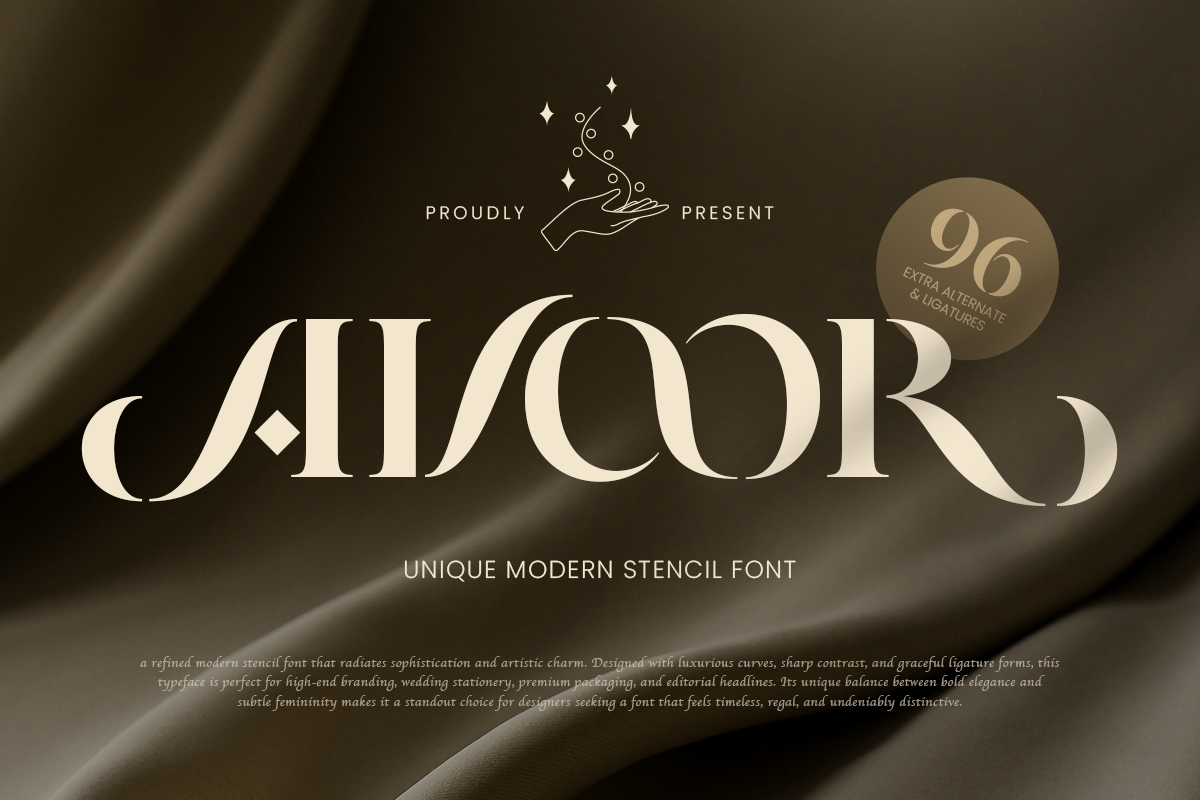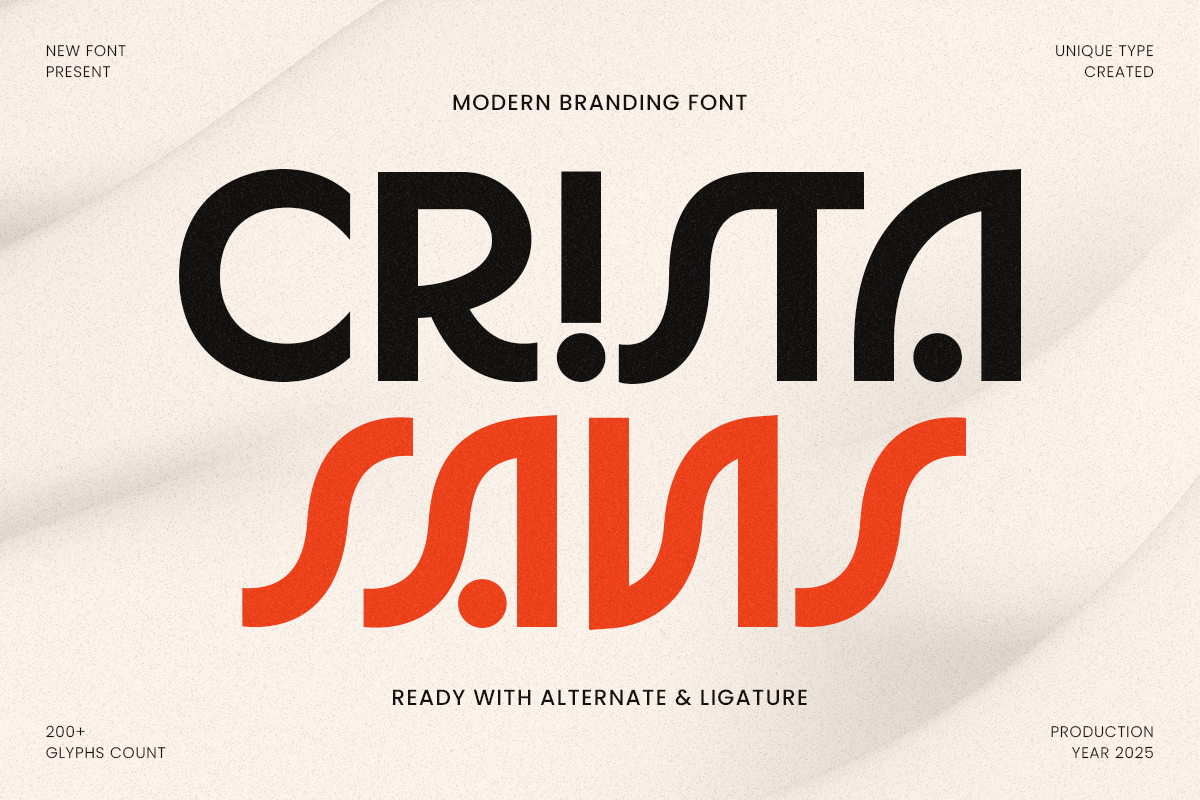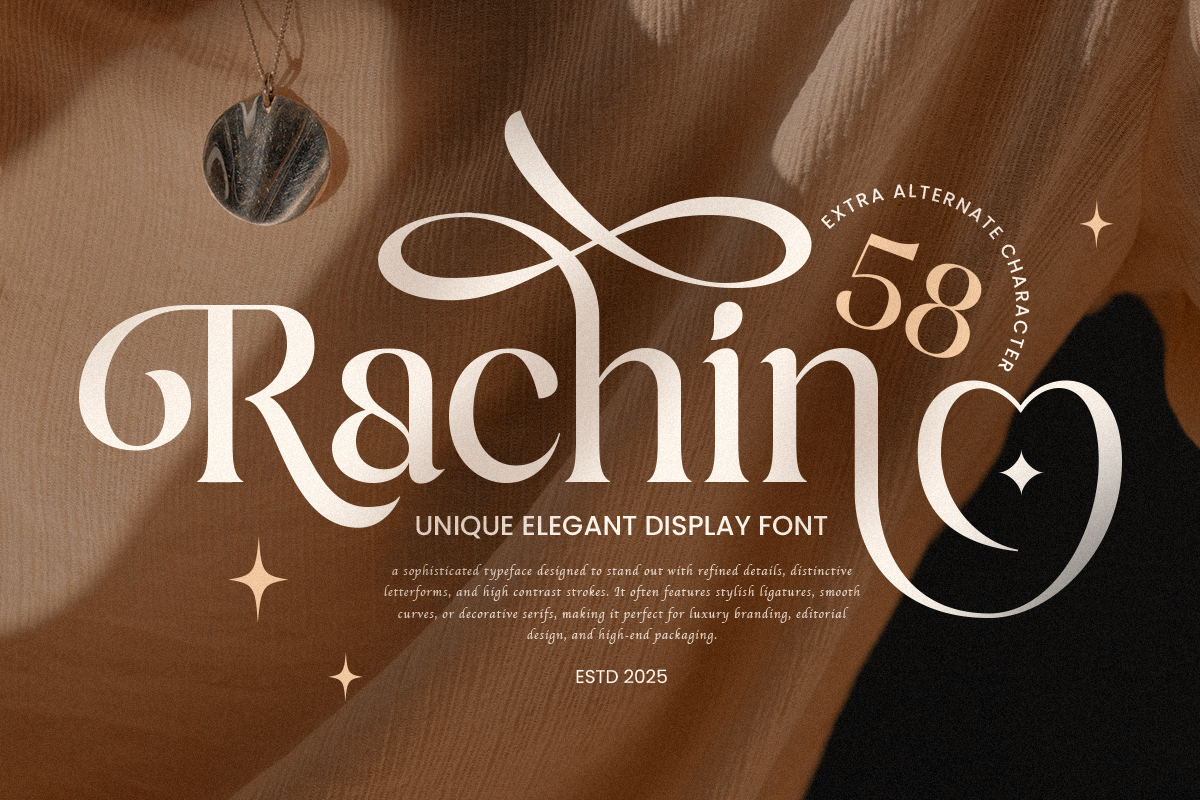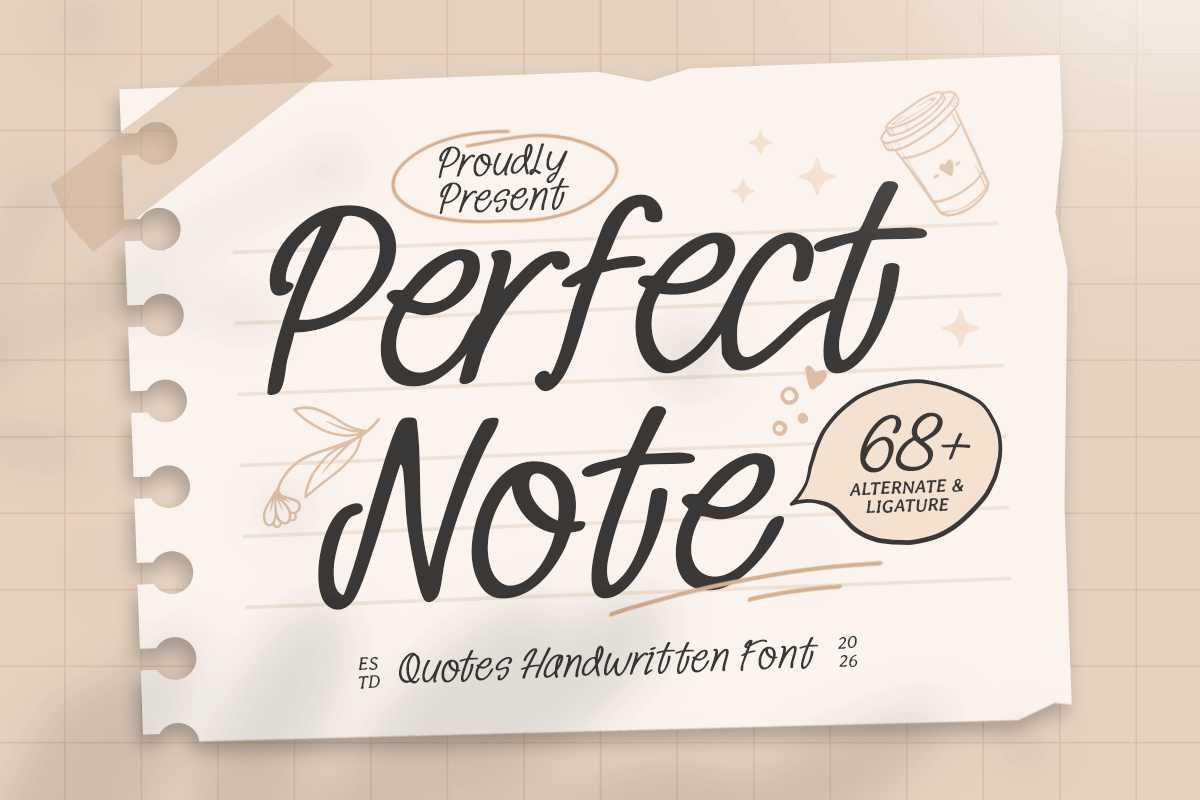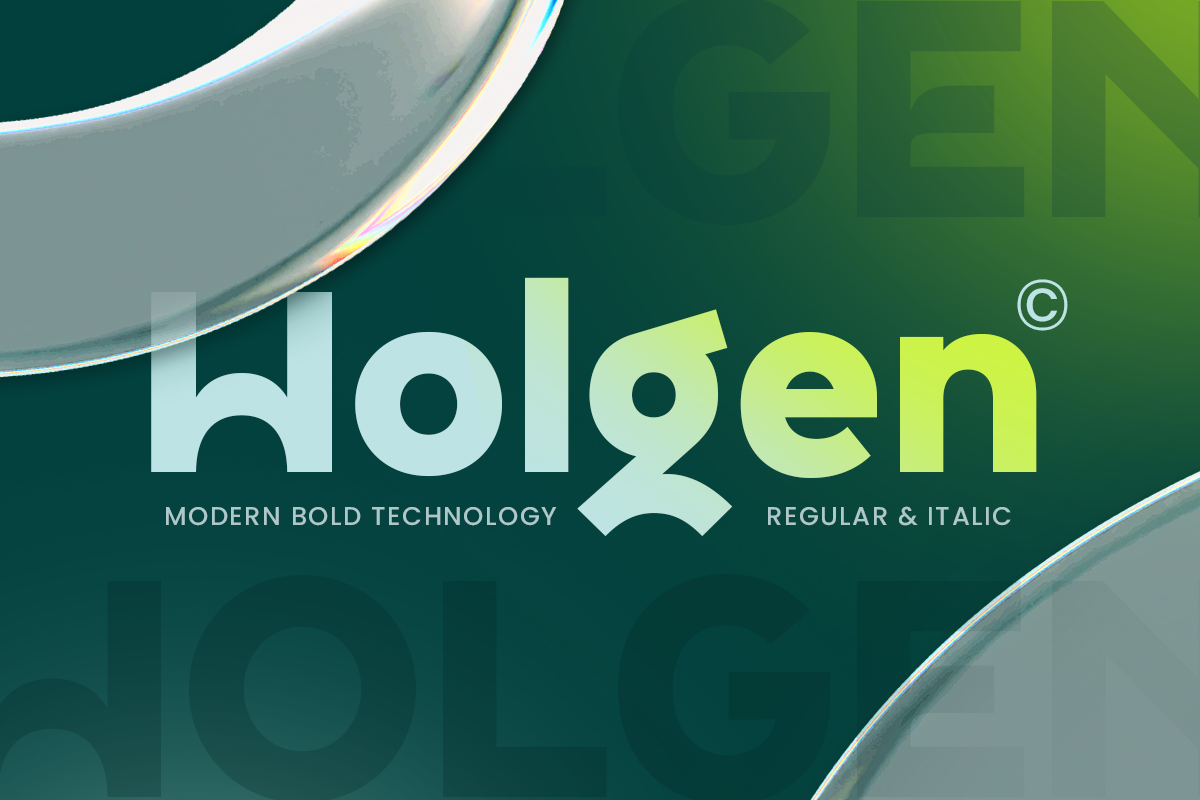
June 2026 Design Ideas, Holidays, and Font Inspiration
June 2026 is a strong month for seasonal design, offering fresh opportunities for graphic designers, brand teams, and content creators to build vibrant mid-year campaigns with bold visuals, lifestyle-driven content, and purposeful typography. From Pride Month and World Environment Day to Father’s Day, June brings a wide range of creative directions, making it ideal for colorful branding, clean natural aesthetics, expressive social media graphics, and modern font inspiration that helps campaigns feel relevant, polished, and visually engaging.
June sits right in the middle of the year, and that makes it one of the most interesting months for design planning. It is a natural checkpoint for brands, creative teams, and content creators to refresh their direction, sharpen their visuals, and build campaigns that feel more alive. In June 2026, three of the most relevant design moments to pay attention to are Pride Month throughout June, World Environment Day on 5 June 2026, and Father’s Day on 21 June 2026.
For designers, this month has a wide visual spectrum. June can feel expressive and vibrant, but it can also feel grounded, clean, and thoughtful. That contrast is what makes it useful. One campaign can lean bold and energetic, while another can stay soft, natural, and editorial. If you are building seasonal content for the middle of the year, June gives you room to create visuals that feel fresh without looking forced.
Why June?
June often feels like a visual reset button. By the time a brand reaches mid-year, the first quarter energy has usually settled, and there is more clarity around what is working. That makes June a strong month for refreshing campaign direction, testing a new tone, or introducing a more expressive content style.
From a design perspective, June supports several directions at once. It works for social campaigns with bold messaging, editorial visuals with lifestyle energy, awareness content with strong identity, and seasonal promotions that need brighter, more open visual language. This month does not need to be treated as a generic summer moodboard. It can be more strategic than that.
For lifestyle, fashion, beauty, and creative brands, June is also useful because it feels socially active and visually expansive. There is room for color, story, typography, and message-led design without making the work feel too heavy.
Best Alternative Fonts For June
Perfect Note - Quotes Handwritten Font
Perfect Note is a quotes handwritten font crafted to bring warmth, personality, and natural charm to your typography. With soft handwritten strokes and an easy flowing rhythm, this typeface creates a personal visual tone that feels authentic, friendly, and beautifully expressive.
Avoor - Unique Classy Stencil Font
Avoor is a unique classy stencil font designed to bring a refined artistic touch to modern branding. With its luxurious serif structure and carefully crafted stencil cuts, this typeface creates a bold, sophisticated, and memorable visual identity ideal for high-end brands and editorial layouts.
Rachin - Unique Elegant Display Font
Rachin is a unique and elegant display font designed to bring sophistication, style, and artistic flair to your designs. With its distinctive letterforms and refined details, this font is ideal for luxury branding, editorial layouts, stylish packaging, fashion headlines, and creative logo designs.
Wolgen - Modern Bold Technology Font
Wolgen is a modern bold technology font that embodies power, precision, and futuristic innovation. With its strong geometric letterforms and high-tech aesthetics, this font is perfect for technology brands, gaming titles, digital products, cyberpunk themes, and cutting-edge branding.
Crista Sans - Modern Branding Font
Crista Sans is a modern branding font designed with clean geometry and refined proportions, perfect for brands that value simplicity, clarity, and timeless professionalism. Its balanced letterforms make it ideal for corporate identity systems, packaging, and modern editorial layouts.
FAQ
Q: What are the best June design themes for 2026?
A: The strongest June design themes for 2026 include expressive identity-led visuals for Pride Month, eco-conscious and natural branding for World Environment Day on 5 June, and warm, grounded appreciation content for Father’s Day on 21 June 2026.
Q: What fonts work best for Pride Month campaigns?
A: Bold sans serif fonts usually work best for Pride Month campaigns because they feel confident, clear, and modern. They also help balance colorful compositions and energetic layouts.
For designers, that means June is not a one-note month. It is a month with a wide visual spectrum. If you approach it with a clear campaign angle, strong typography, and intentional color direction, it can become one of the most useful seasonal moments in the design calendar.